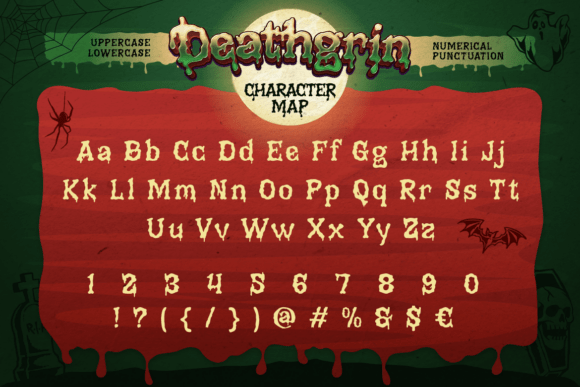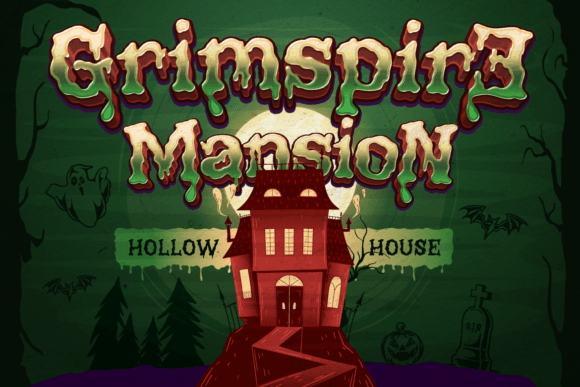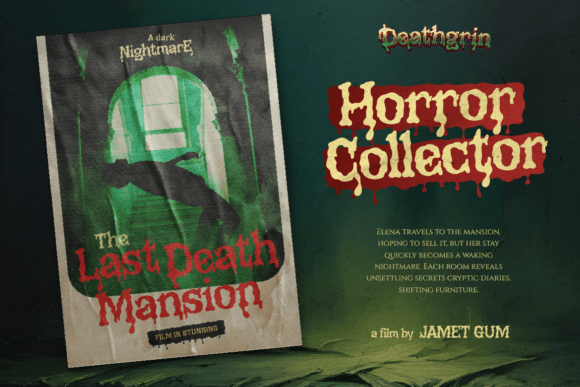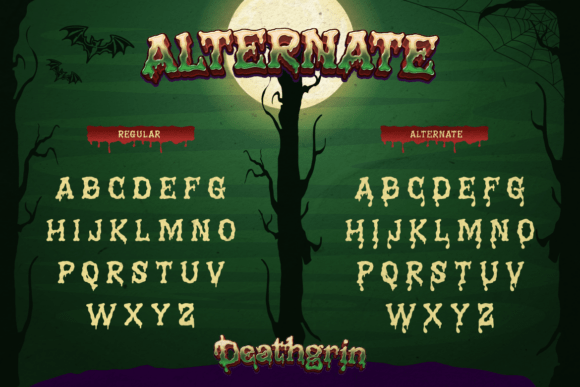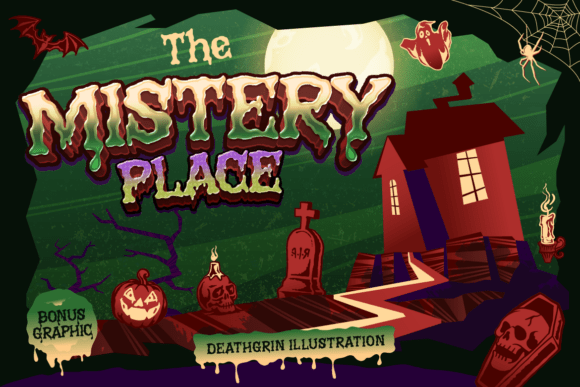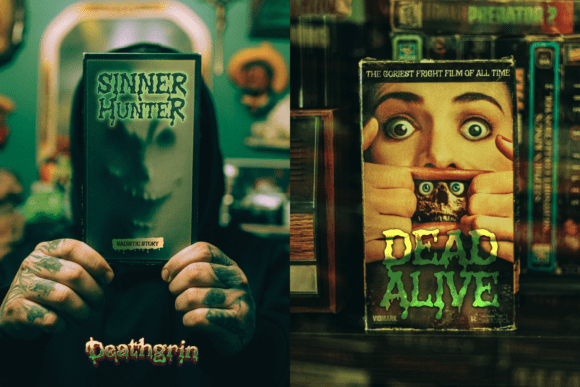
Unleash the Horror with Deathgrind Font: The Ultimate Display Font for Spooky Designs
Are you looking for a font that will add a chill to your creative projects? Look no further than Deathgrind, a horror-themed display font designed to bring the thrills and chills of Halloween to your designs. With its hand-drawn, irregular letterforms and bloody, slimy texture, Deathgrind is the perfect font for creating spooky and eerie aesthetics.
The Perfect Font for Horror and Halloween Designs
Deathgrind is a one-of-a-kind font that is sure to make your designs stand out. Each character is hand-drawn to perfection, with an irregular shape that looks like it was scratched or melted into place. This gives your titles and headlines an intense, haunted energy that is sure to grab attention. Whether you’re creating posters, stickers, social media content, or packaging, Deathgrind is the perfect font for adding a touch of horror and Halloween spirit to your designs.
Beyond the Font: Bonus Illustration Pack
But what really sets Deathgrind apart is the bonus illustration pack that comes with it. This pack includes a range of hand-drawn spooky icons, from witches and bats to pumpkins, coffins, dripping candles, and eerie skulls. These graphics are the perfect addition to your design, helping you to build a complete and cohesive spooky vibe around your typography. With these illustrations, you can create a fully immersive horror experience that will leave your audience shivering with fear.
Deathgrind is perfect for designers and crafters who want to add a touch of horror and Halloween spirit to their projects. Whether you’re creating haunted house flyers, Halloween party invites, horror movie titles, or anything else that needs a dramatic, spooky flair, Deathgrind is the perfect font for the job. The font is easy to use and can be applied to a wide range of design projects, from print to digital.
What Makes Deathgrind Special
So what makes Deathgrind so special? Here are just a few things that set it apart from other fonts:
- Hand-drawn letterforms: Each character is hand-drawn to perfection, giving the font a unique and irregular shape.
- Bloody, slimy texture: The font has a bloody, slimy texture that perfectly captures the spirit of Halloween and spooky aesthetics.
- Bonus illustration pack: The font comes with a bonus illustration pack that includes a range of hand-drawn spooky icons.
- Chaotic, fun, and terrifying: Deathgrind is a font that is chaotic, fun, and terrifying in all the right ways.
Tips for Using Deathgrind
Here are a few tips for using Deathgrind in your designs:
- Use it for headlines and titles: Deathgrind is perfect for headlines and titles, where you want to grab attention and add a touch of horror and Halloween spirit.
- Experiment with different colors: Try using different colors to add an extra layer of spookiness to your design.
- Combine it with other fonts: Deathgrind can be combined with other fonts to create a unique and interesting design.
- Use the illustration pack: Don’t forget to use the bonus illustration pack to add an extra layer of horror and Halloween spirit to your design.
Deathgrind is a horror-themed display font that is perfect for adding a touch of horror and Halloween spirit to your designs. With its hand-drawn, irregular letterforms and bloody, slimy texture, Deathgrind is sure to grab attention and leave your audience shivering with fear. The bonus illustration pack takes your design to the next level, providing a range of hand-drawn spooky icons that can be used to create a fully immersive horror experience. Whether you’re a designer or crafter, Deathgrind is the perfect font for your next project.